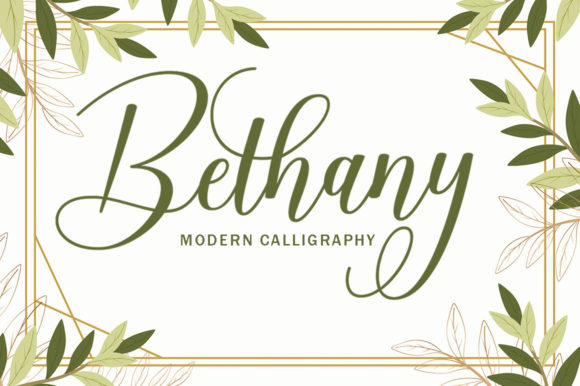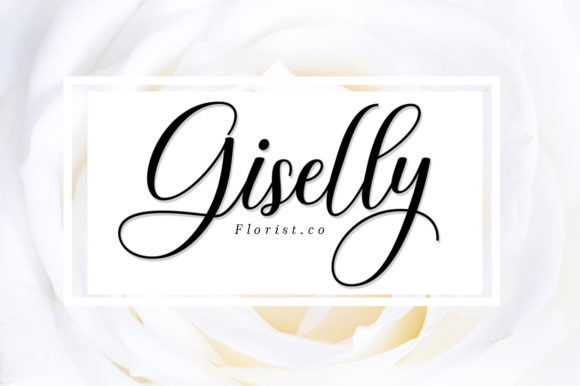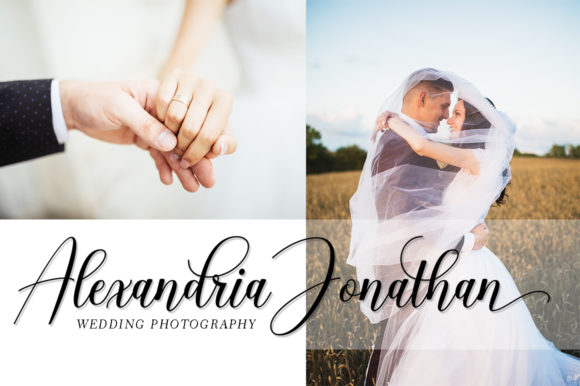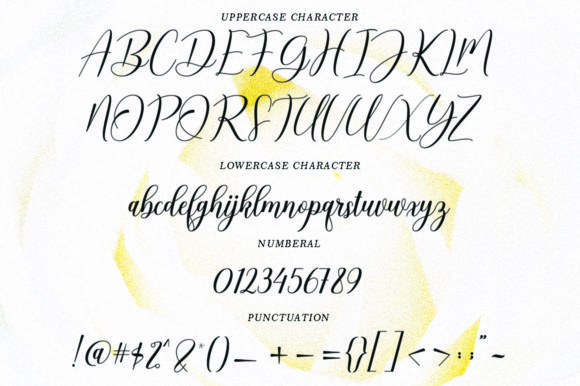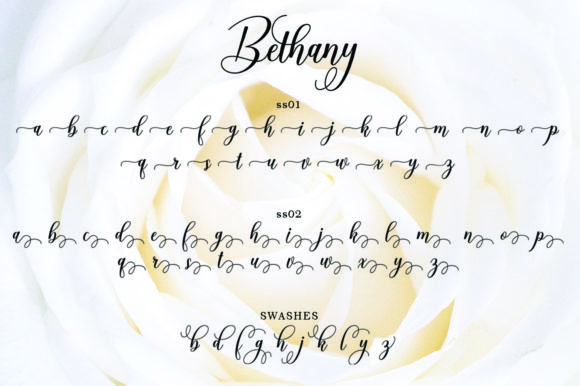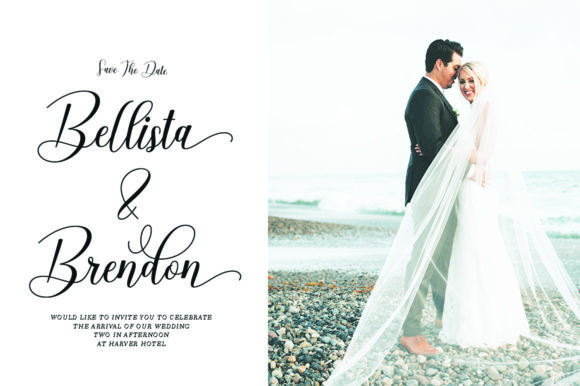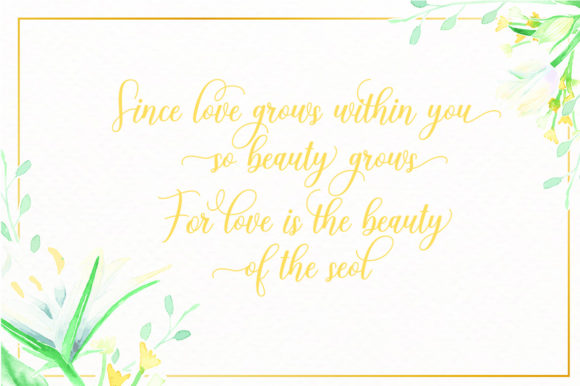
Bethany Script Font
Bethany is elegant and sophisticated, but also charming. This versatile script font has a wide range of applications ranging from crafts to branding, and is guaranteed to add a magical touch to your next design.
This font is PUA encoded which means you can access all of the stunning glyphs and swashes with ease! It also features a wealth of special features including alternate glyphs and ligatures.